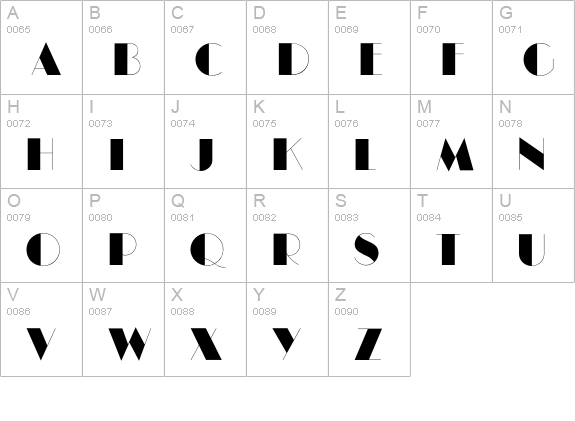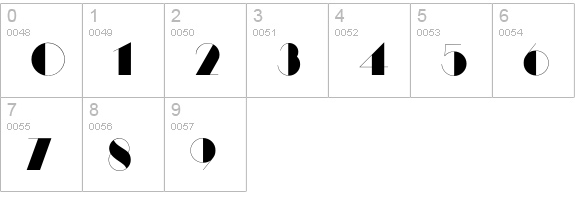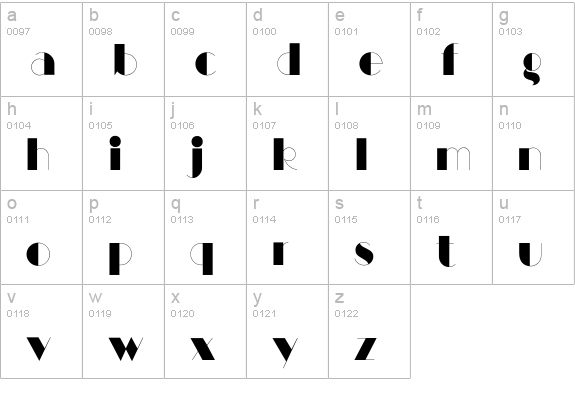
LSCManhattan Font Details
LSCManhattan font is a sophisticated and elegant typeface that exudes a sense of modernity and refinement. Its sleek lines and balanced letterforms make it perfect for a wide range of design projects, from branding to editorial layouts. The font's clean and timeless aesthetic is sure to make a lasting impression on any audience. What sets LSCManhattan font apart is not only its visual appeal but also the fact that it is available for free download at FontsMarket.com. This means that designers and creatives can access this premium font without any cost, making it a valuable addition to any toolkit. Whether you are working on a professional project or a personal endeavor, LSCManhattan font is a versatile and stylish choice that will elevate your designs to the next level.